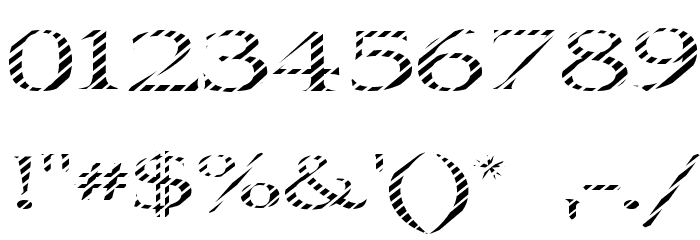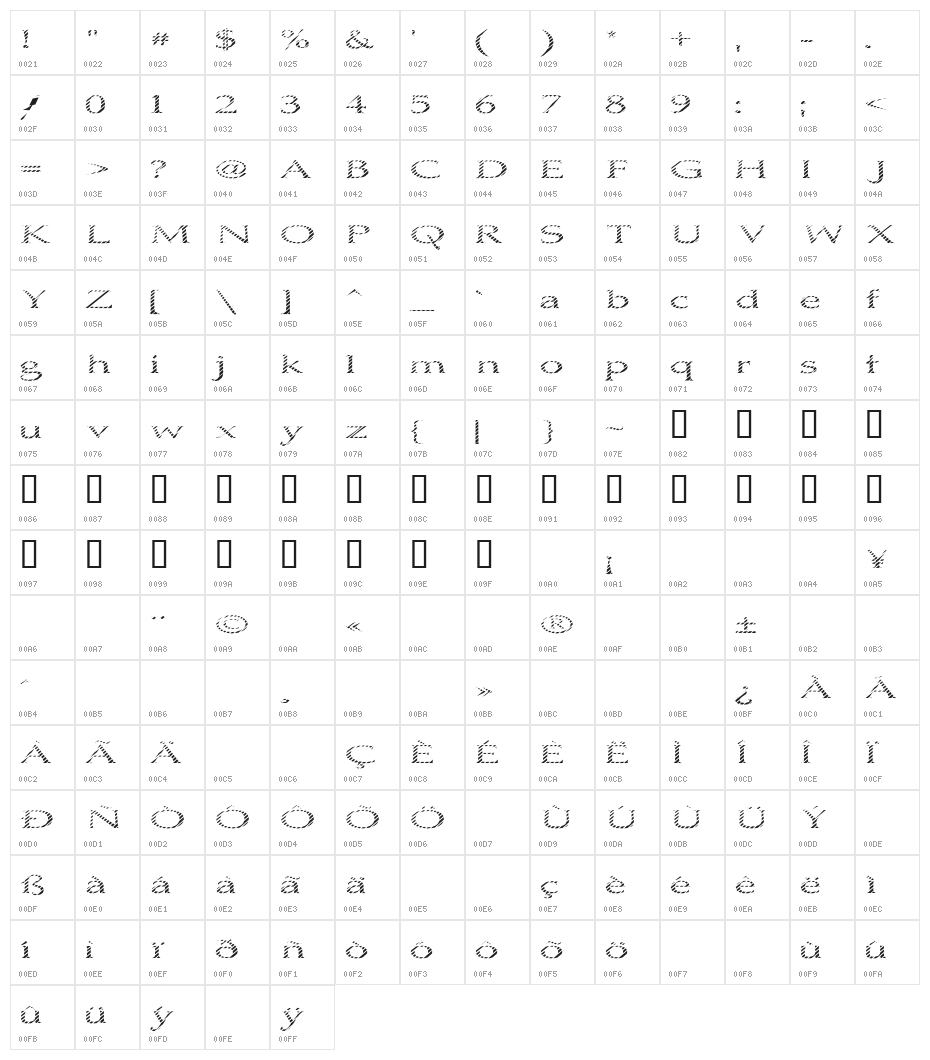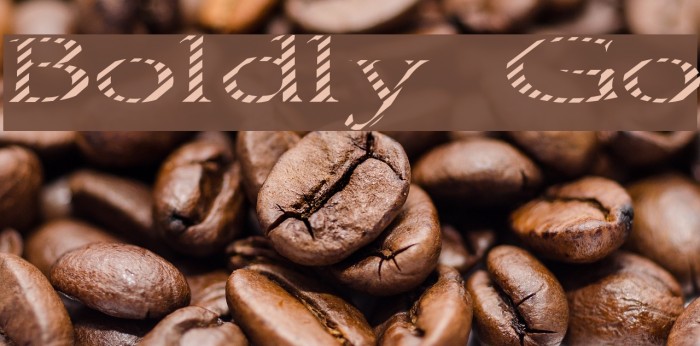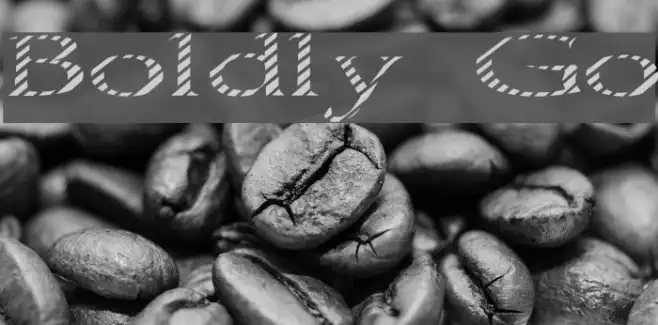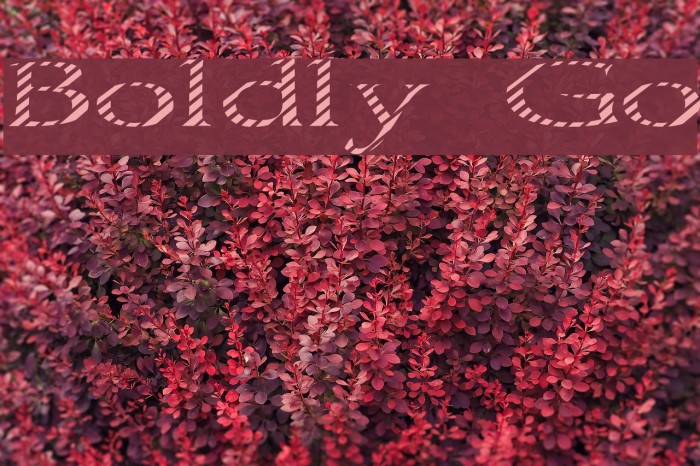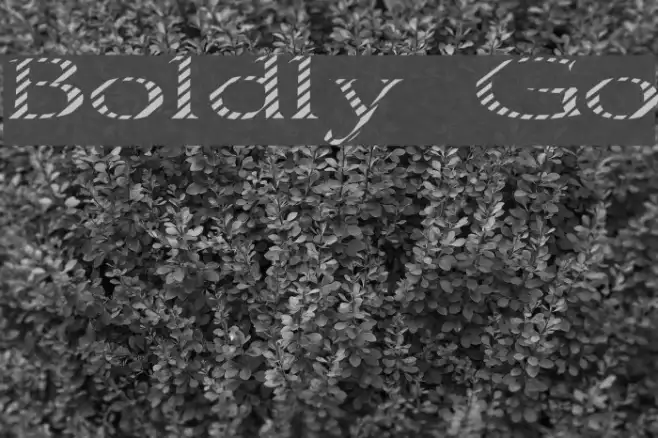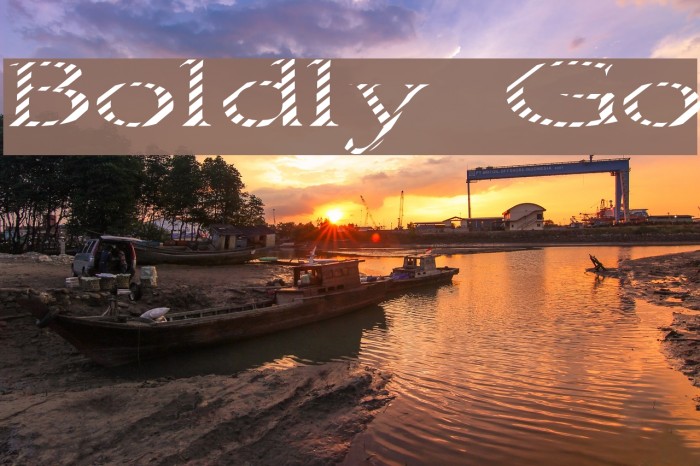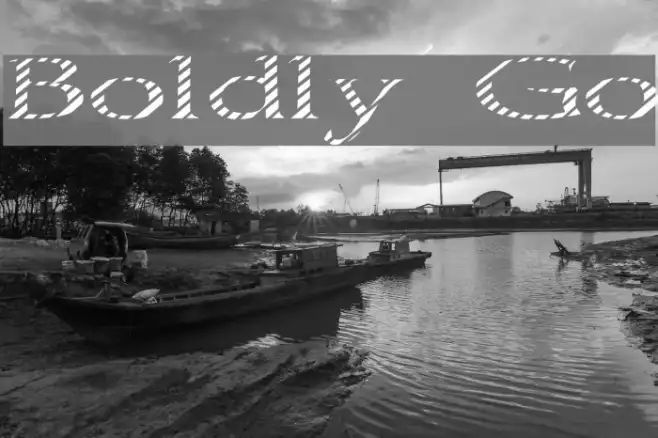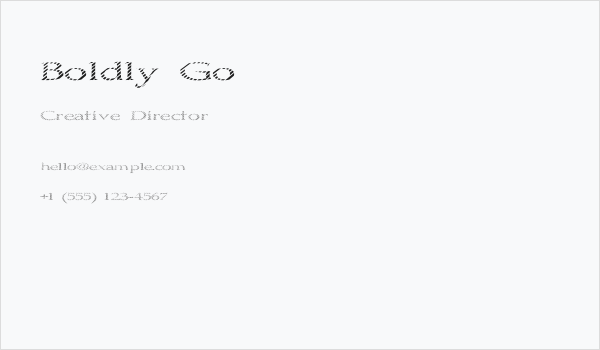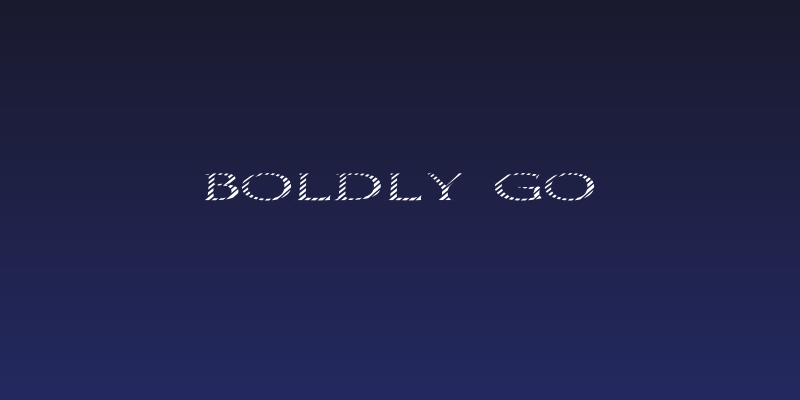
Boldly Go Font
Boldly Go Description
This font features a unique, decorative style with diagonal striped patterns running through each character, giving it a dynamic and textured appearance. The uppercase letters are bold and slightly condensed, while the lowercase letters maintain a consistent style with a touch of elegance. The numerals are clear and distinct, matching the overall aesthetic of the alphabet. Special characters are included, maintaining the same striped pattern, which adds to the cohesive design. This font stands out with its modern and artistic flair, making it suitable for creative projects.
| Proposed Projects | Ideal for branding, posters, and creative design projects where a bold statement is needed. |